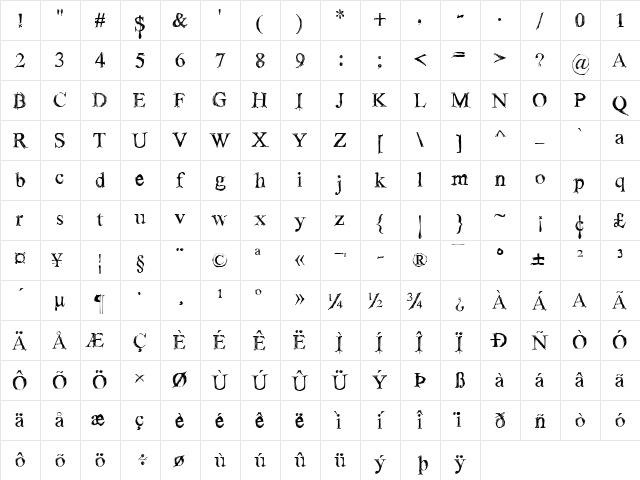
!Sketchy Times Bold Free Font
!Sketchy Times Bold
Foundry: !Exclamachine
Designer: Choz Cunningham
!Sketchy Times Family
Design Context for !Sketchy Times
!Sketchy Times is a composed and adaptable typeface that performs quietly and consistently across a wide range of design contexts. Its bold stroke weight gives it real presence on the page.